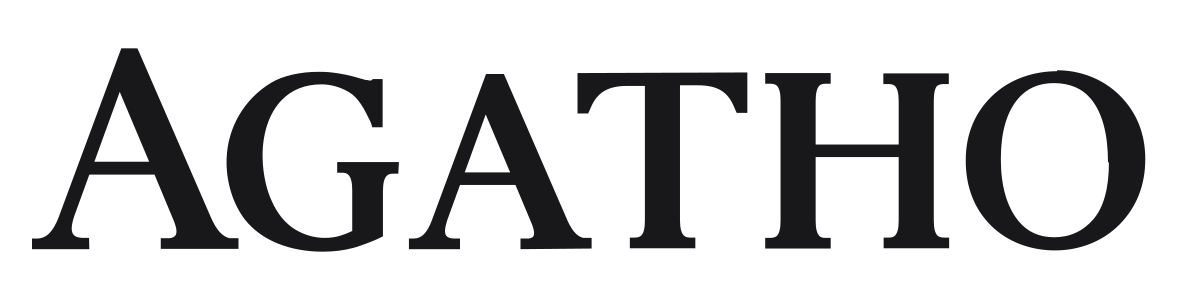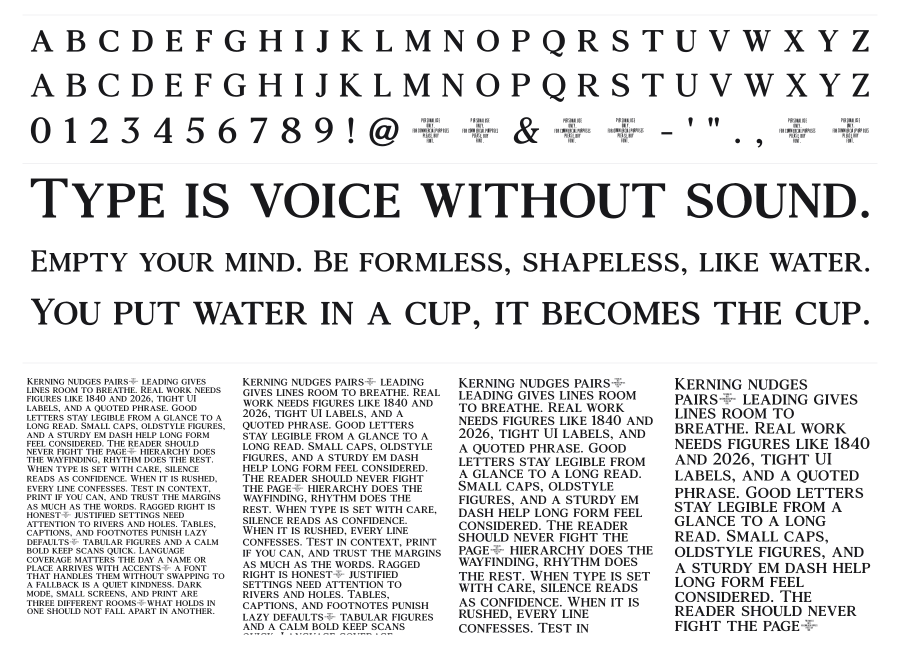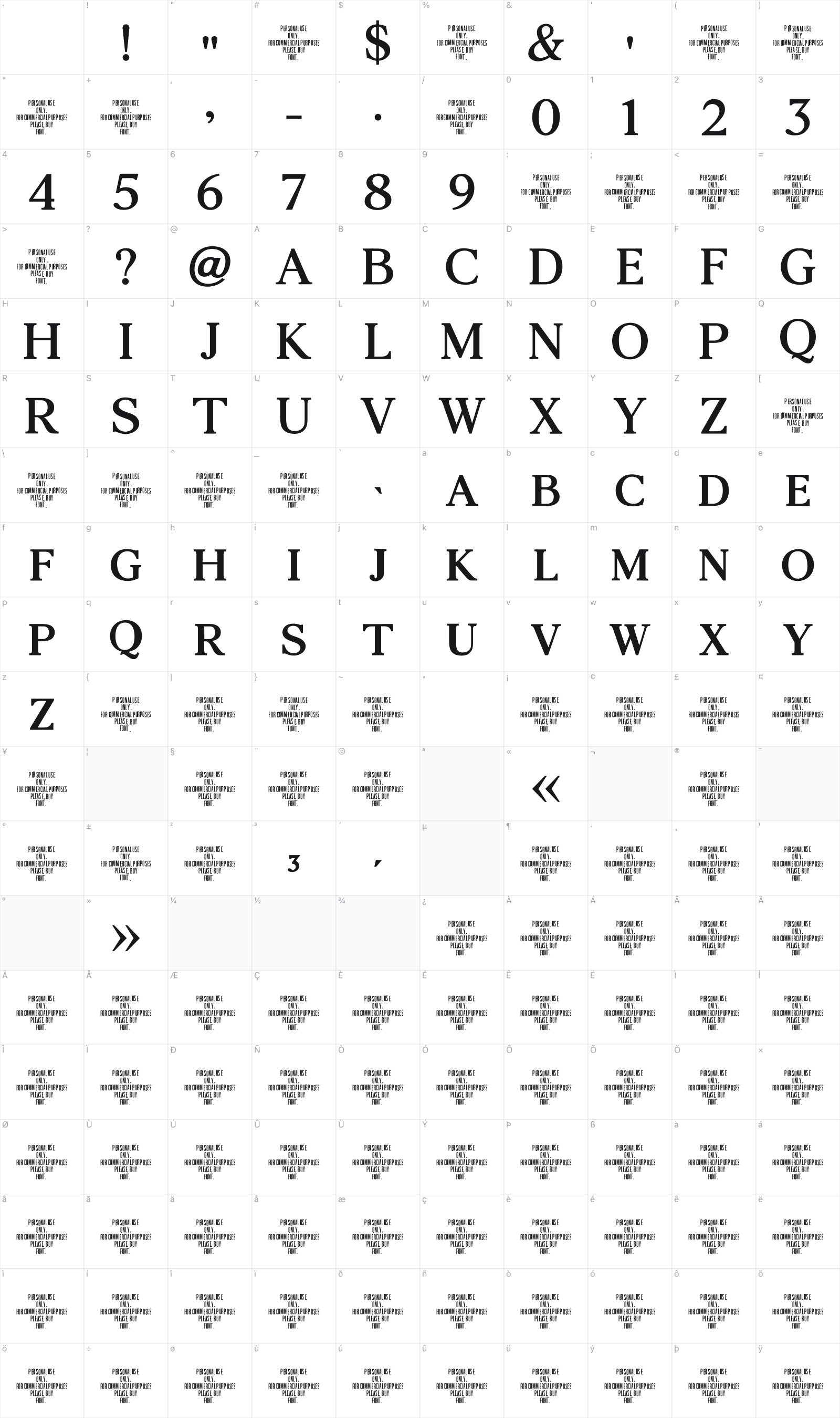
Agatho
Agatho is a bold transitional serif with strong stroke contrast and wide, confident proportions. Its sturdy bracketed serifs and classical construction echo the great printing types of the 18th century while carrying enough weight to anchor headlines and editorial spreads. A reliable workhorse for any project that needs authority and clarity at large sizes.